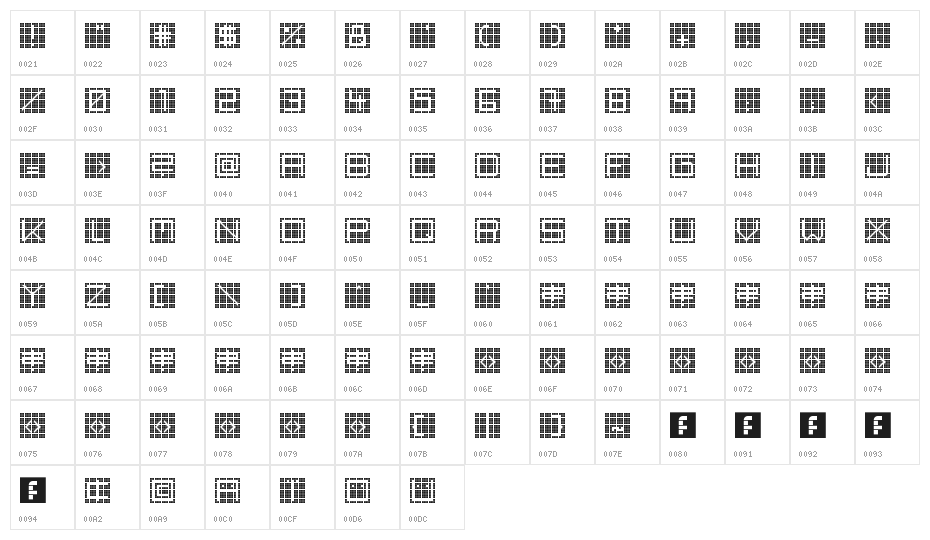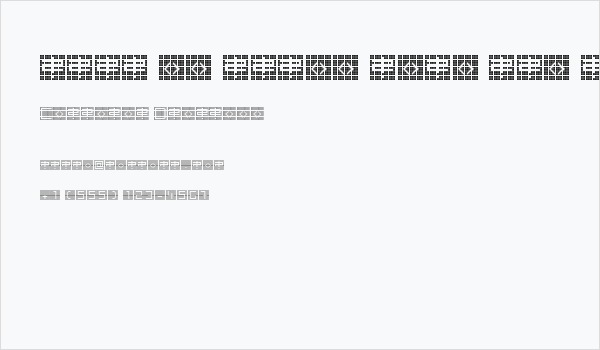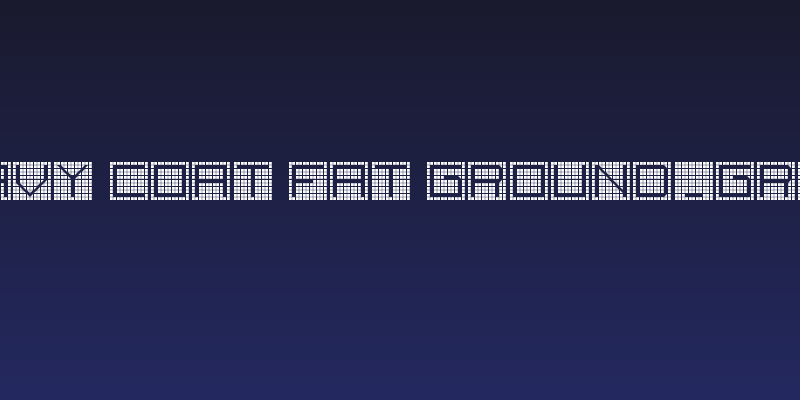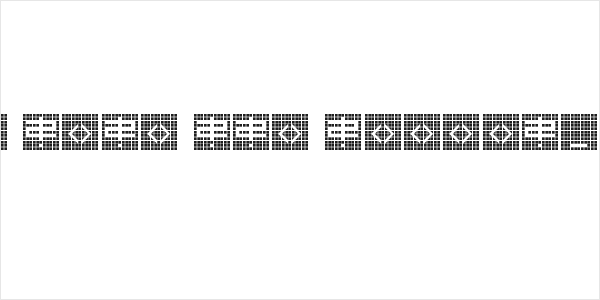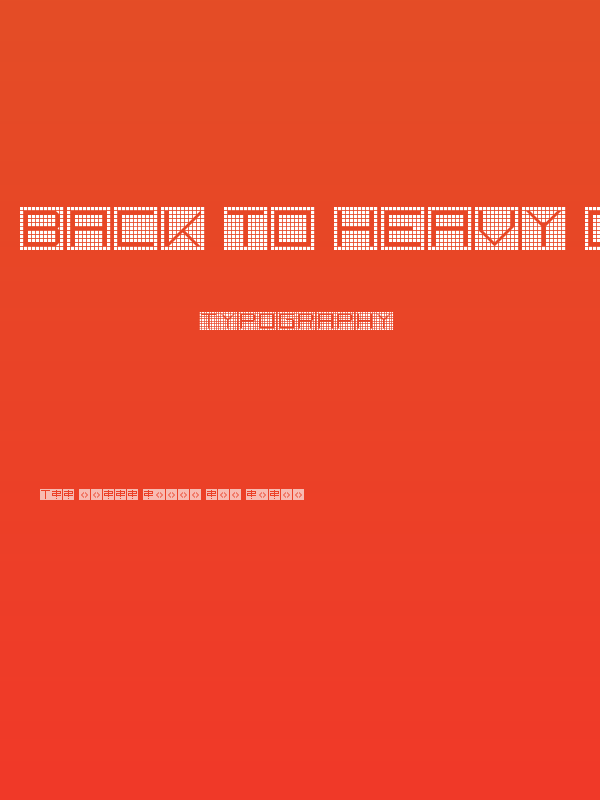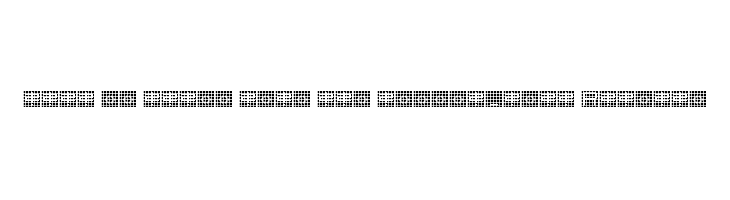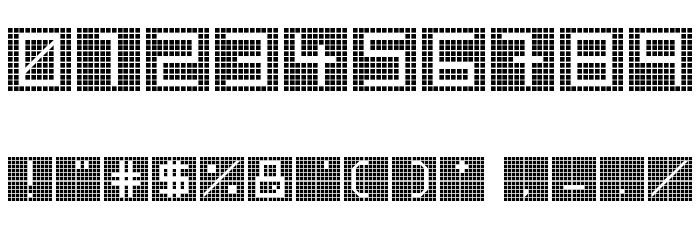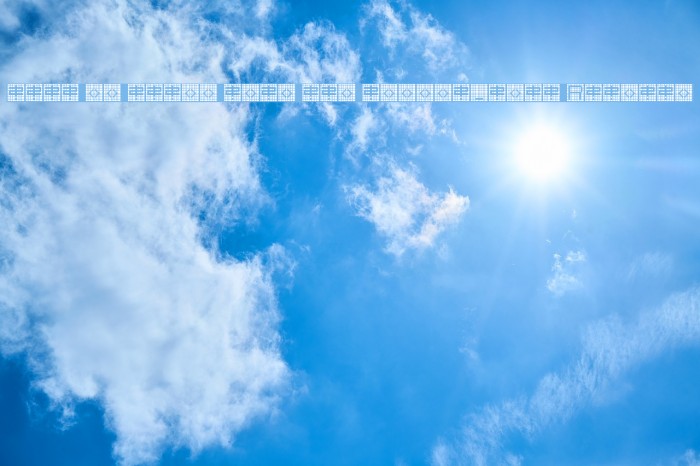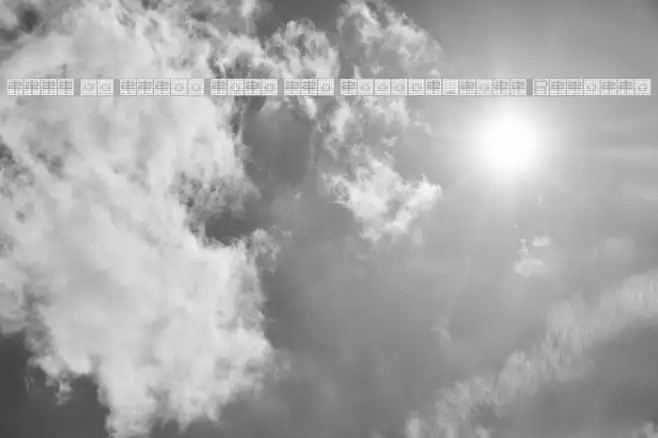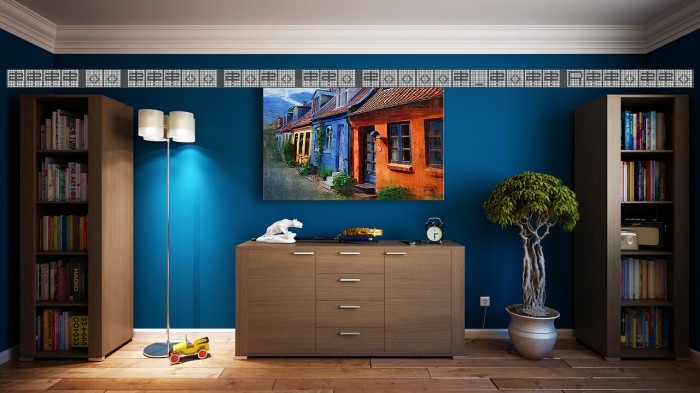
back to heavy coat fat ground_grid Regular Font
back to heavy coat fat ground_grid Regular Description
This font features a unique grid-based design, where each character is composed of small square blocks, creating a pixelated effect. The uppercase letters are bold and distinct, with a geometric style that emphasizes straight lines and sharp angles. The lowercase letters maintain the same grid pattern, offering a consistent look across the alphabet. Numbers and special characters follow the same design principles, ensuring uniformity. The overall appearance is modern and digital, reminiscent of early computer graphics or retro video game aesthetics.
| Proposed Projects | Ideal for digital art projects, retro-themed designs, video game graphics, or any creative work that requires a modern, pixelated look. |